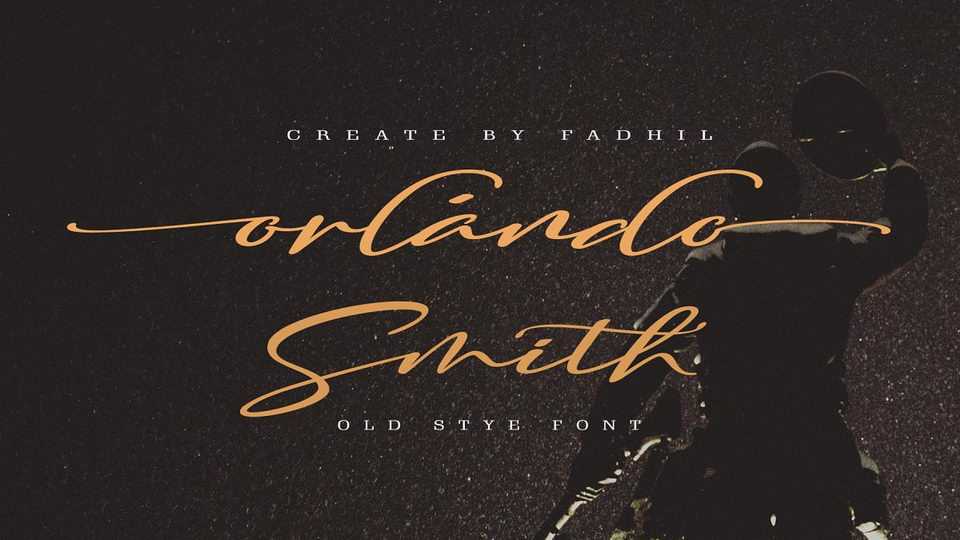
Download Orlando Smith font, a stylish signature style script with an interesting style. Orlando Smith font can be used for various purposes, such as logos, posters, t-shirts, signage, labels, wedding invitations etc.